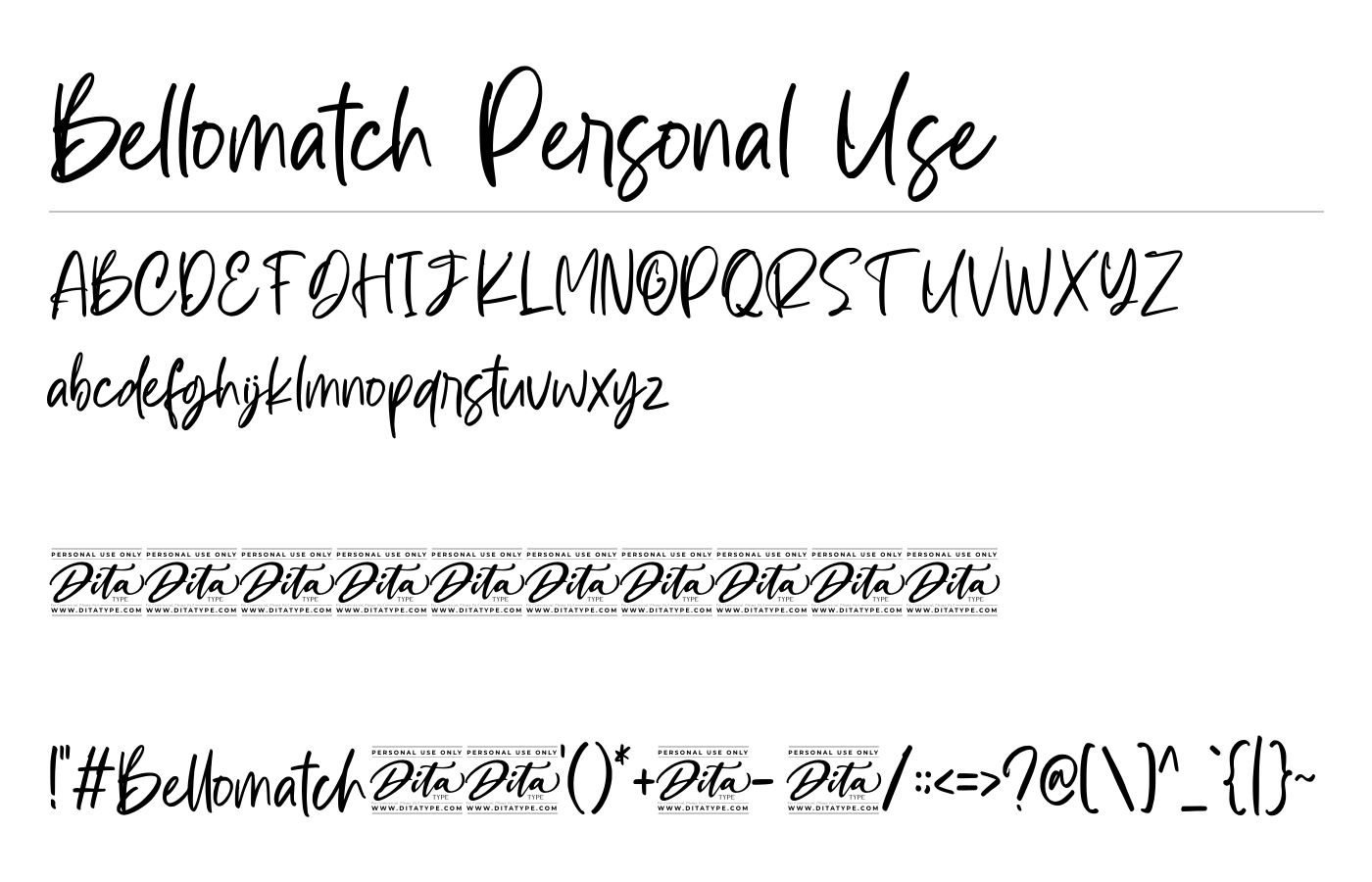
Bellomatch Personal Use is a casual, handwritten script font with a lively and organic feel. Its tall, slightly irregular letterforms and smooth, flowing strokes create an approachable and friendly style, perfect for adding a personal, creative touch to projects like invitations, branding, or social media graphics. This font works well where a natural, expressive look is desired, especially in designs that benefit from an informal yet stylish handwriting vibe.
| Font family | Bellomatch Personal Use Font |
| Designer | Fahrul Arjianto & Donis Miftahudin |
| Trademark | Ditatype |